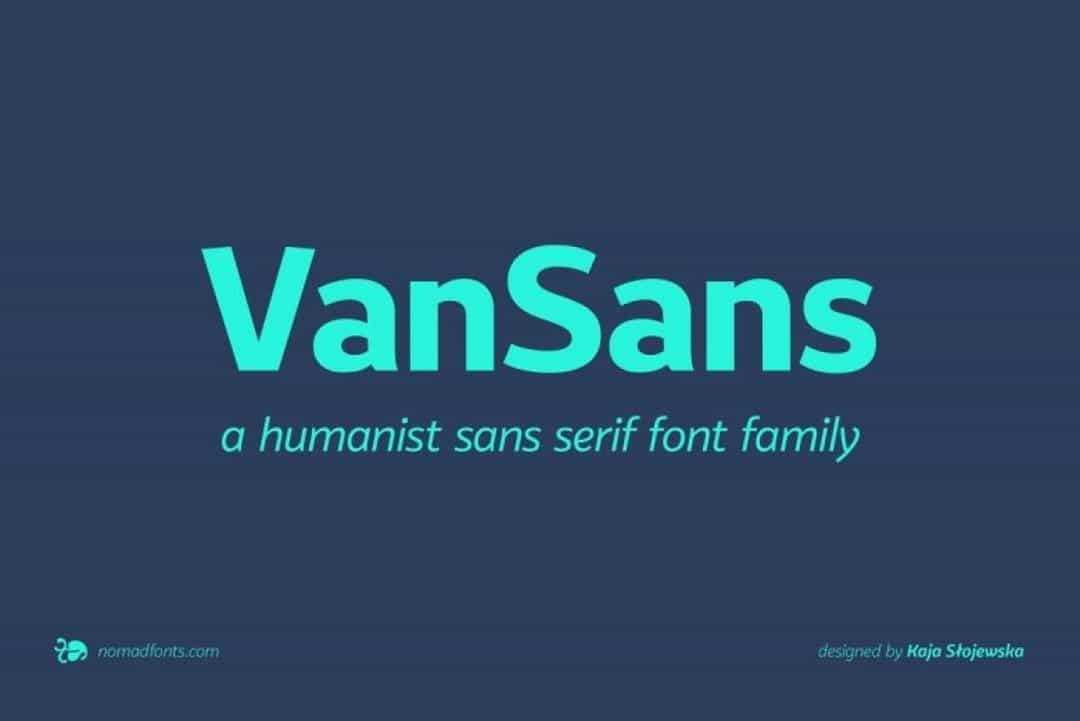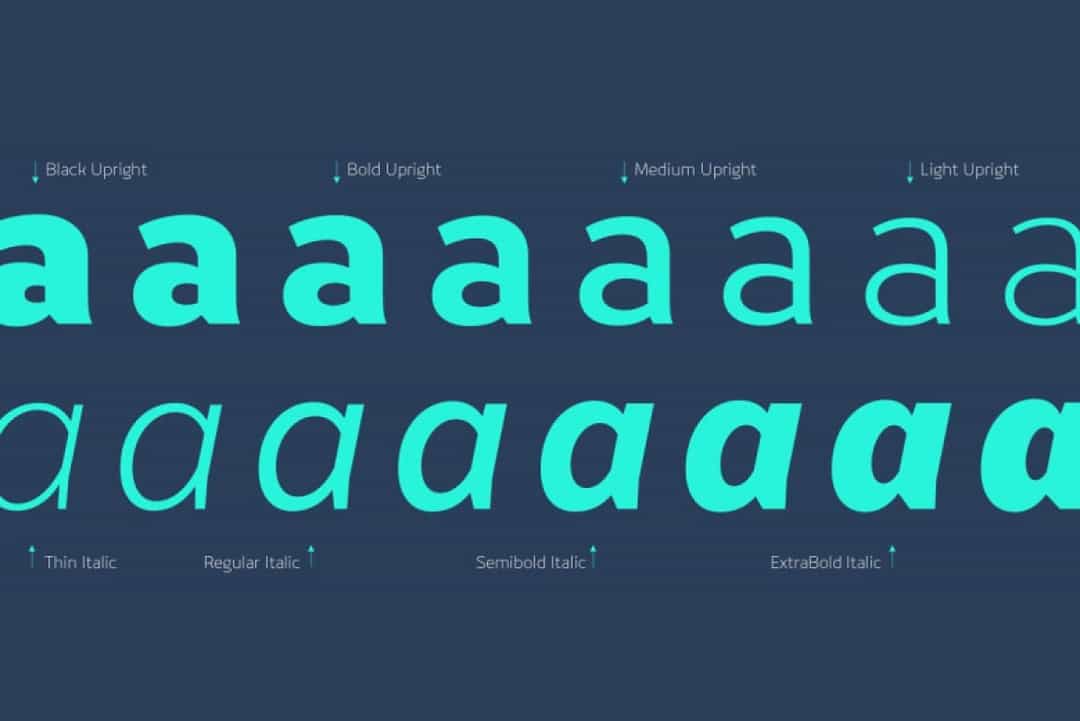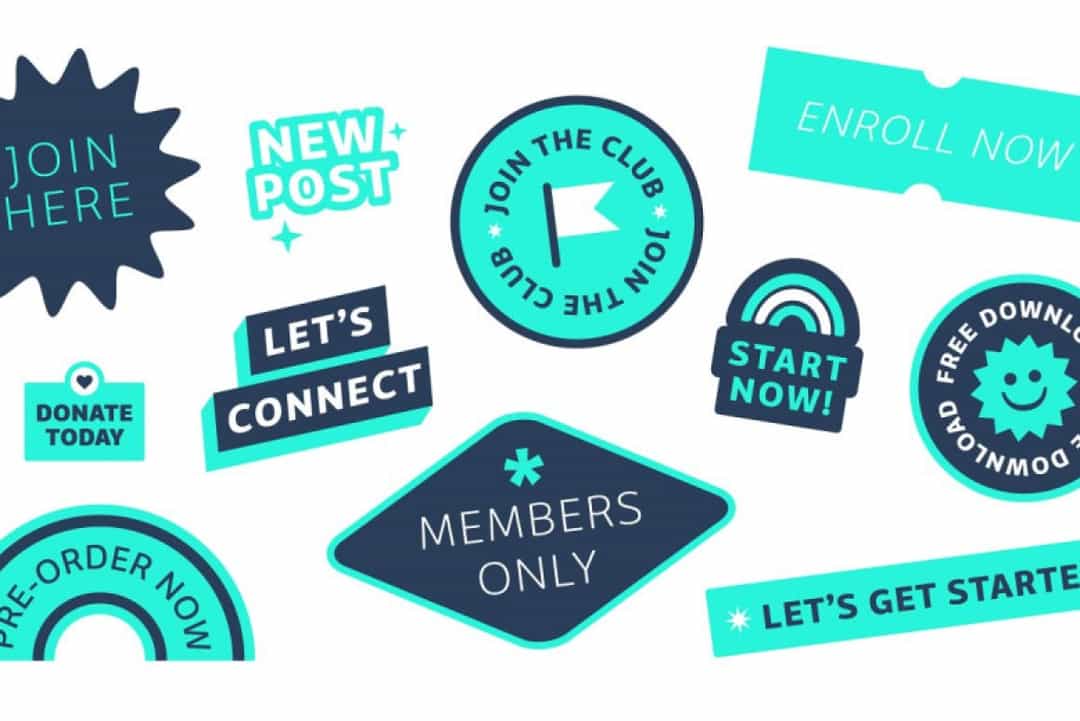
VanSans Font is an elegant humanist sans family designed to add playful warmth and playfulness into elegant styles, taking its inspiration from cities such as Vancouver. Combining industrial style with the warmth and friendliness of its citizens, this font features high x-height as well as wide counter tops allowing it to be read easily both on screens as well as print environments.